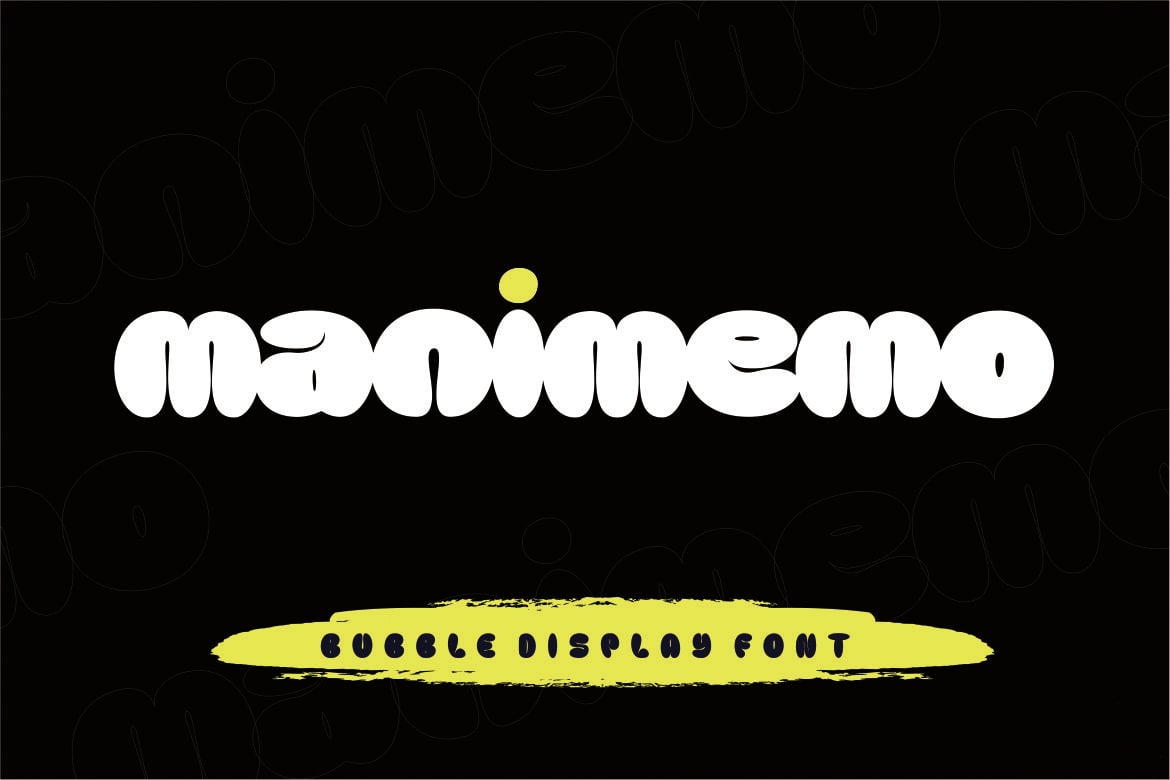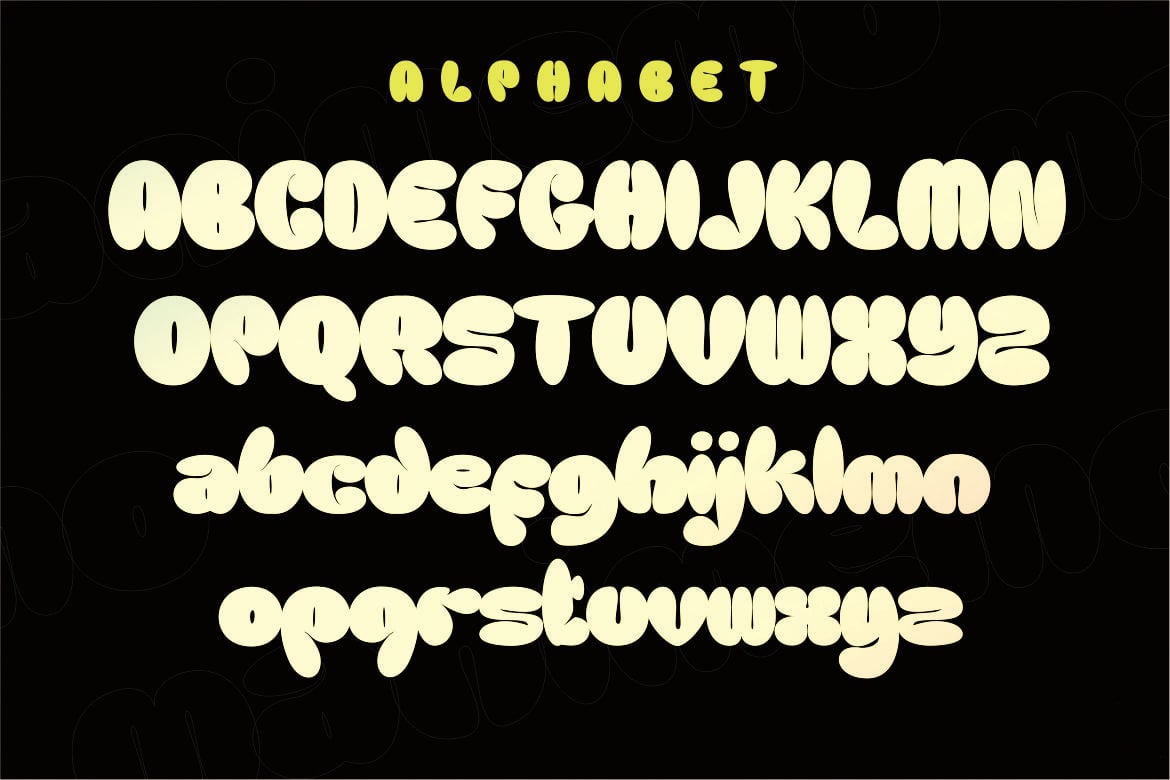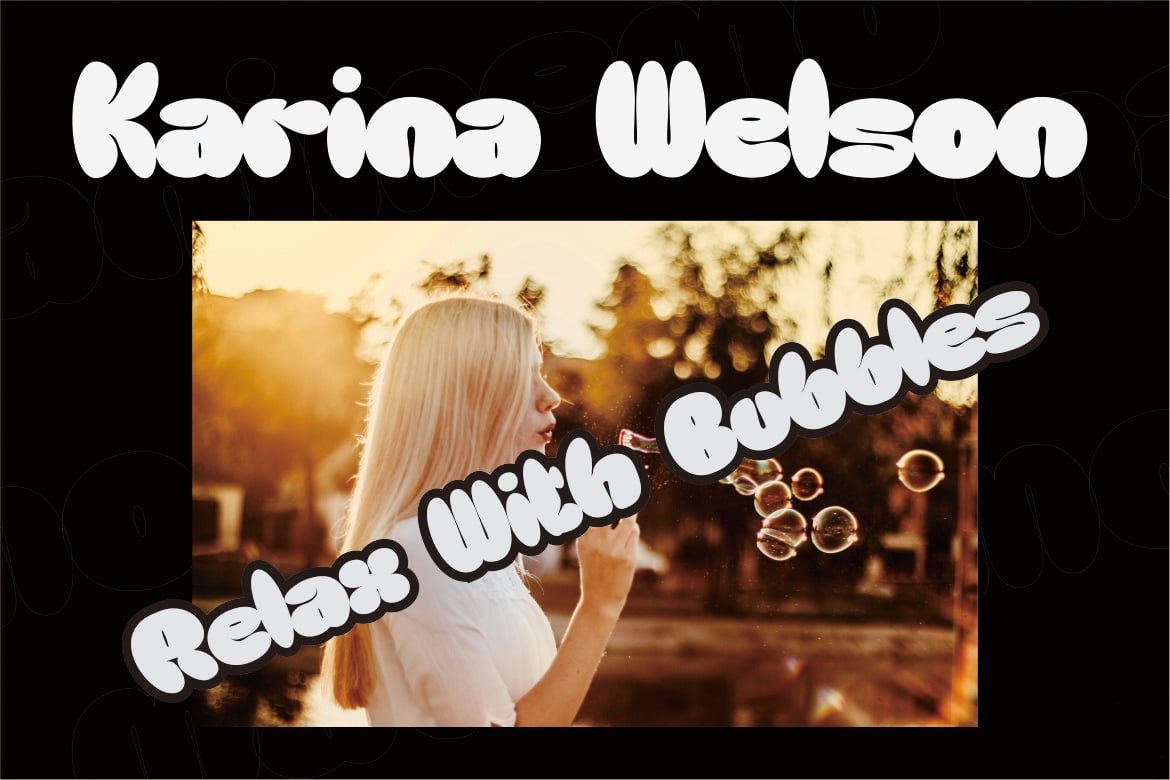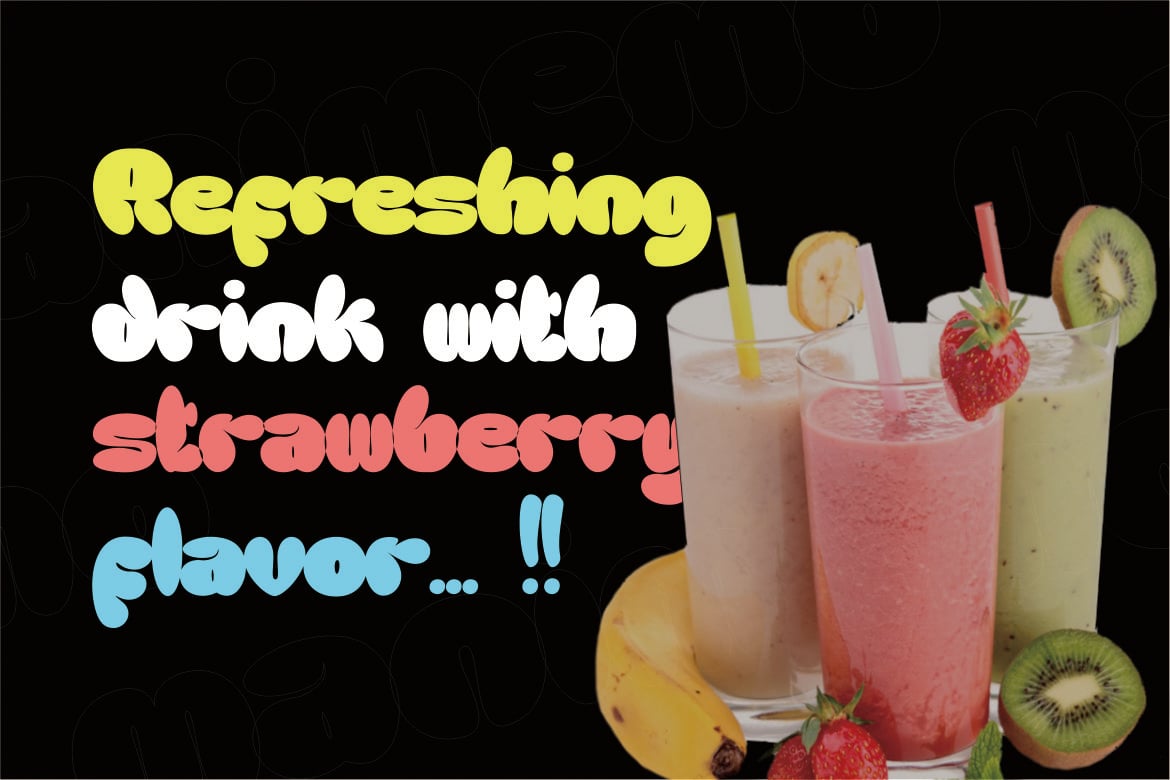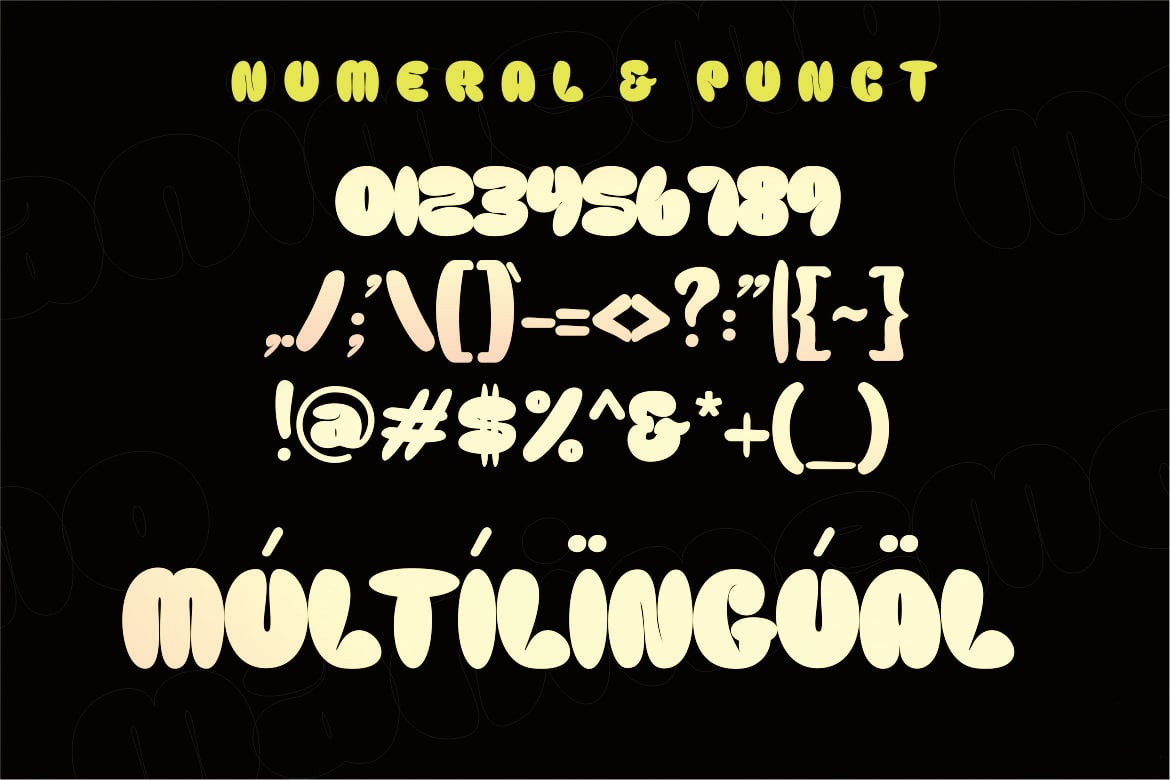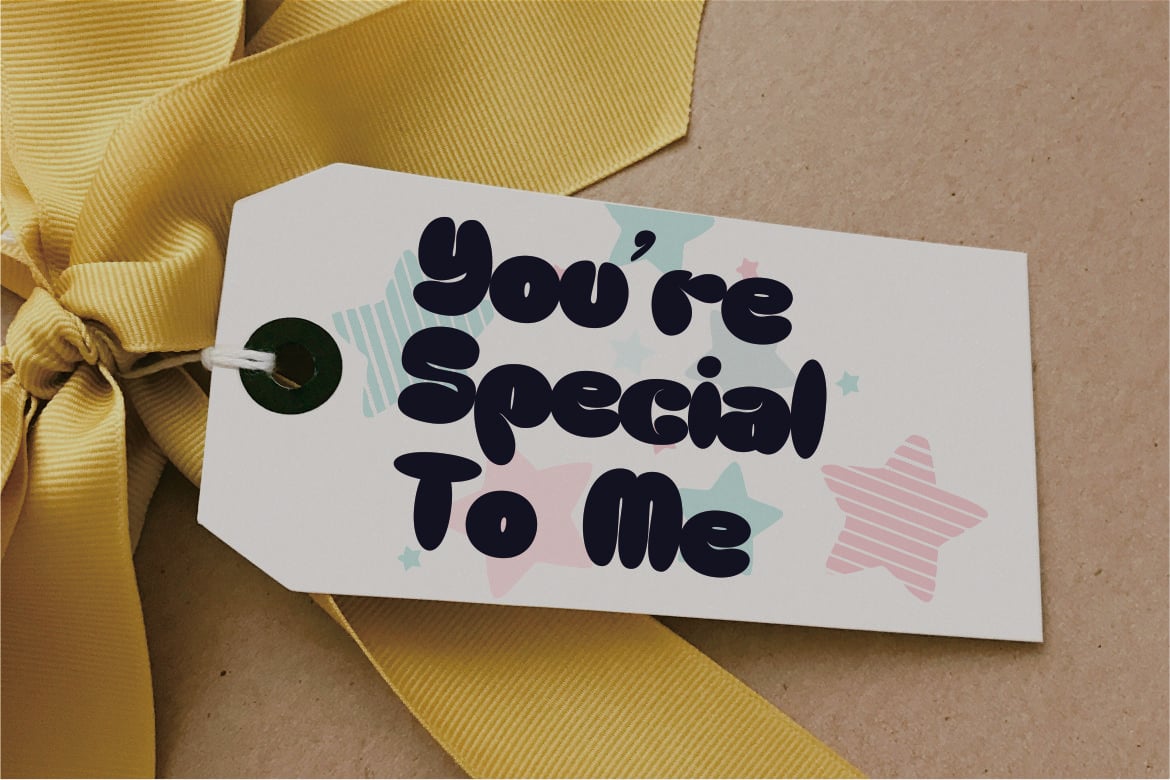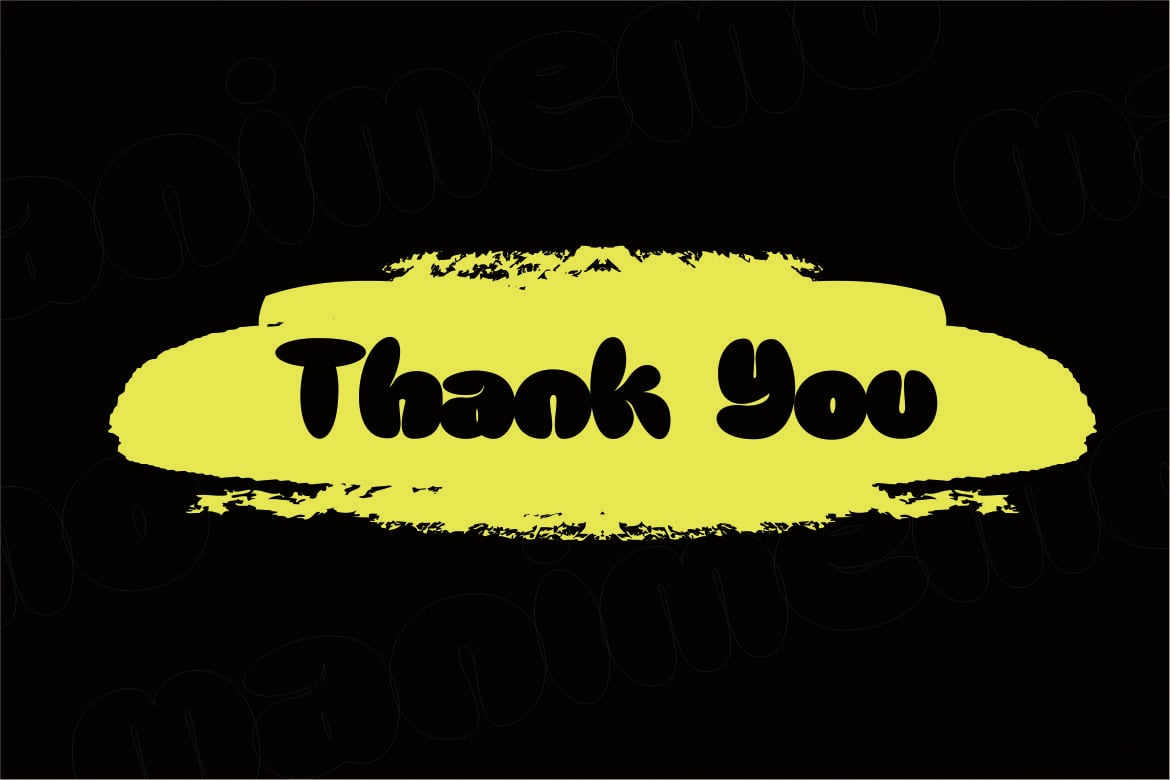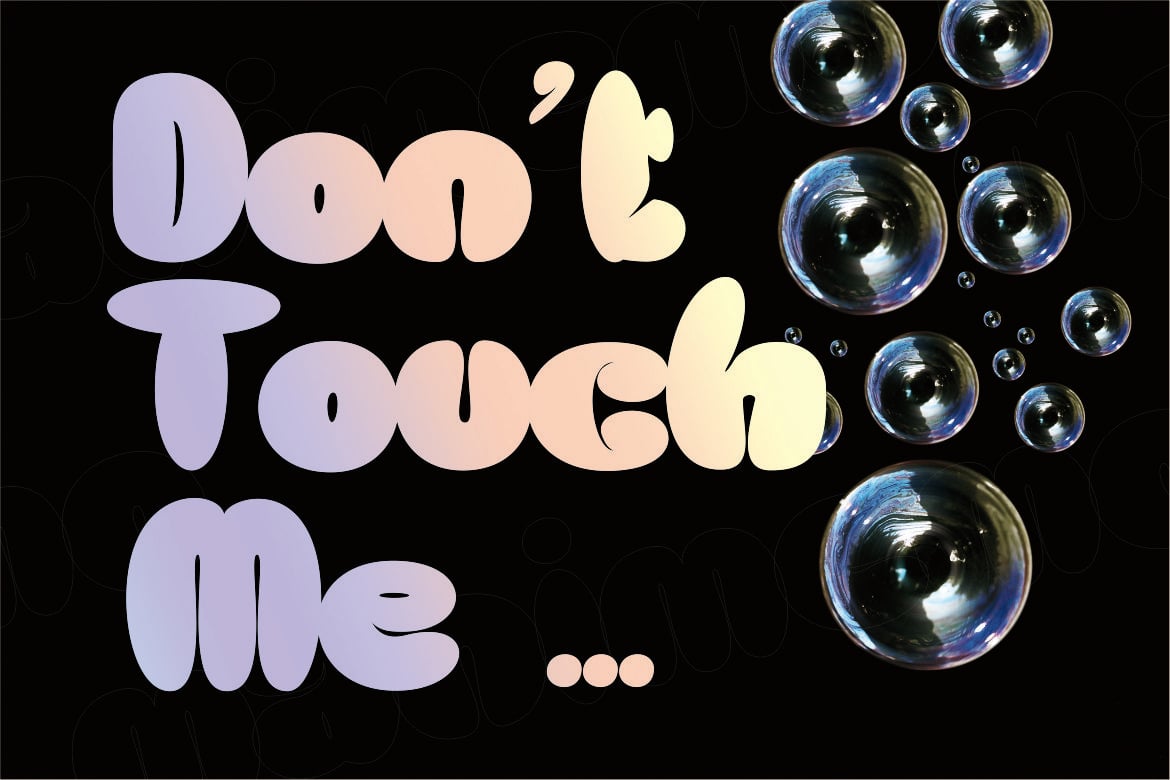
Manimemo – Modern decorative Font
Introducing our new product Manimemo – Modern decorative Font Modern Font
Manimemo – Modern decorative Font – Modern Font is a bold and authentic display font. The font is suitable for any branding project like logo, t-shirt printing, esport, and many more. outstanding in a wide range of contexts.